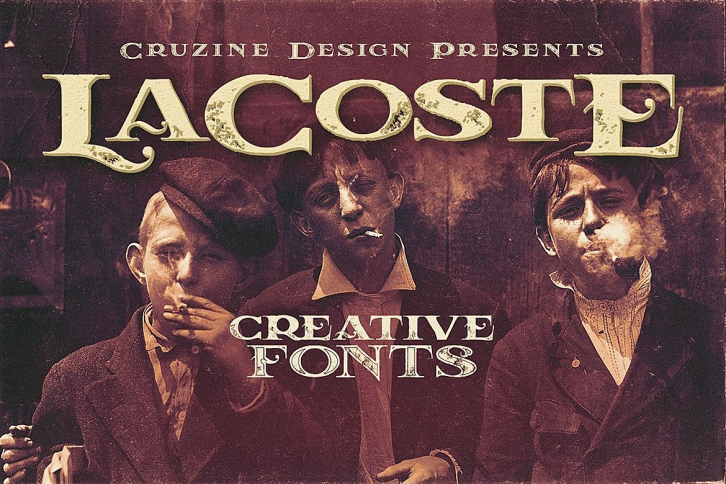
LaCoste Typeface is a trendy and unique font with an authentic style. It was designed by Cruzine Design and it's a great choice for creative people who need such a font. It was released on January 21, 2018 and the file size is 8.87 MB. LaCoste Typeface will add an organic vibe to any design idea!